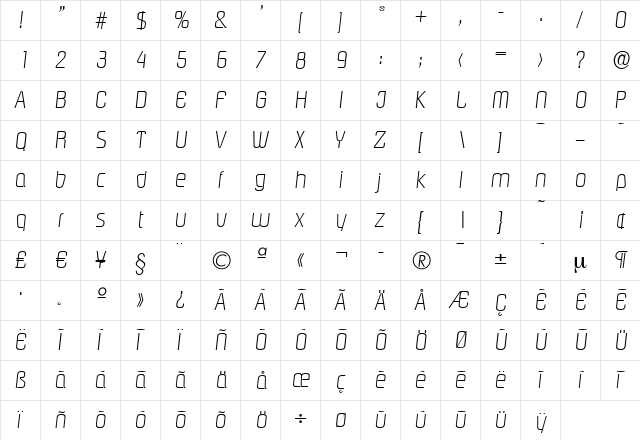
MaxBecker-ExtraLight Italic Font Preview
Design Context for MaxBecker-ExtraLight Typeface
MaxBecker-ExtraLight takes a measured approach to typography — its balanced proportions and neutral character make it a reliable workhorse for both digital and print work. The dynamic lean of this cut emphasises speed and emphasis in any layout. Its slender proportions lend an understated elegance to any composition.